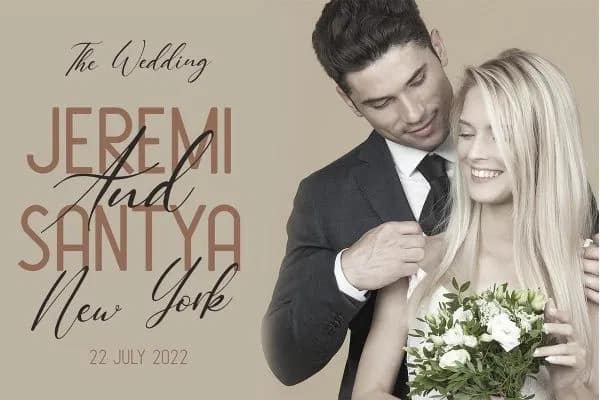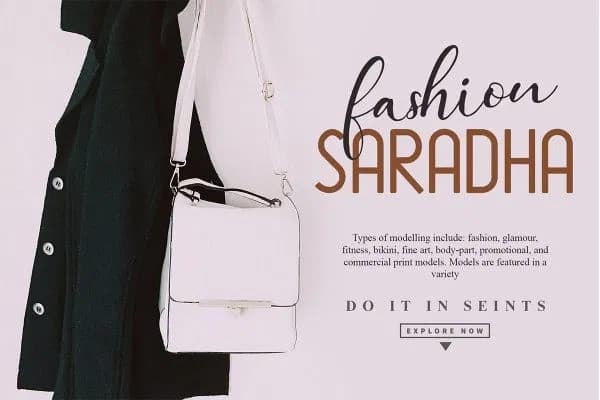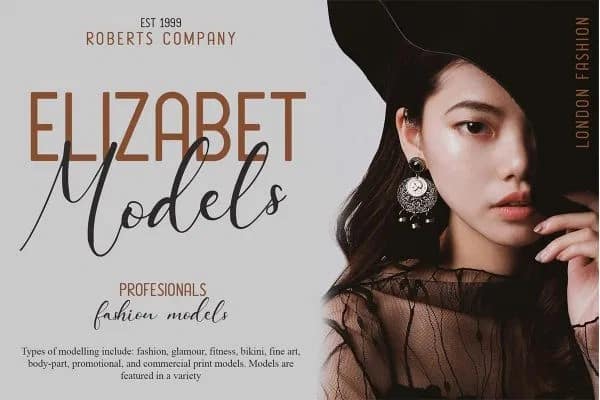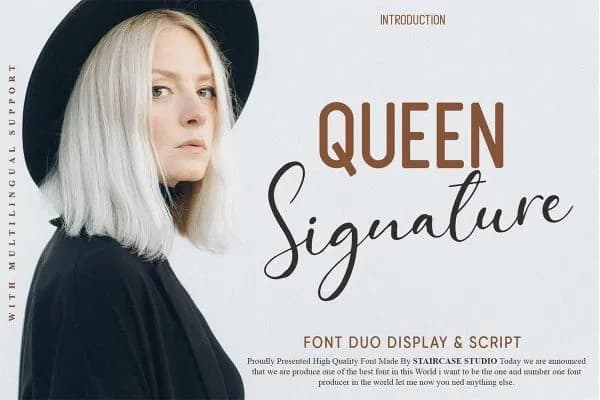
Queen Signature Font Duo is a beautiful font duo with an elegant signature script with a natural & stylish flow and modern serif font. This collection of the font is perfect for personal branding.
Queen Signature Font Duo will offer a fun typographic harmony for different design projects, including logos & branding, t-shirts, book covers, social media posts, advertisements & product designs. It also supports Multi Language.